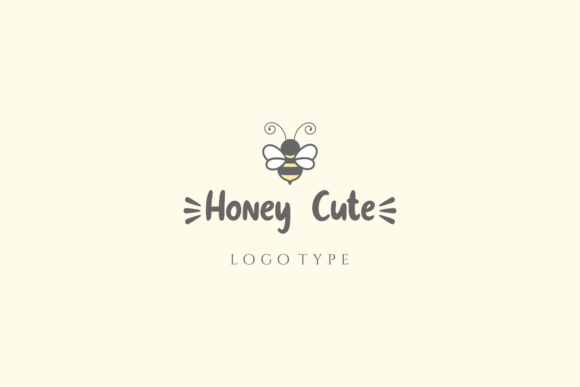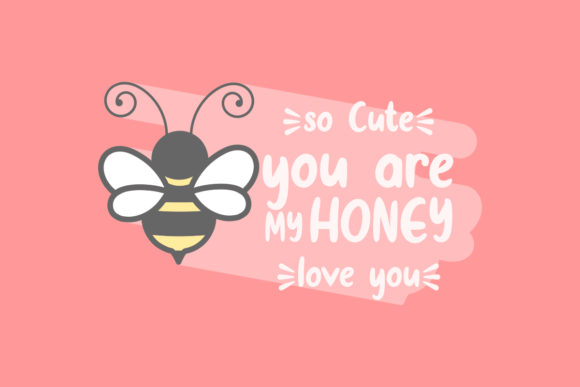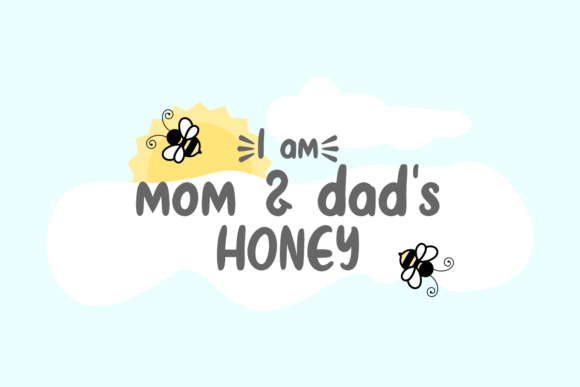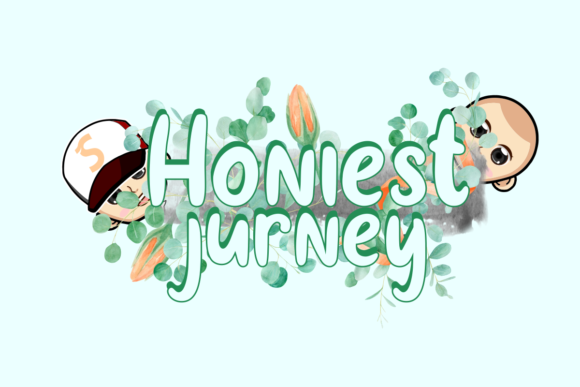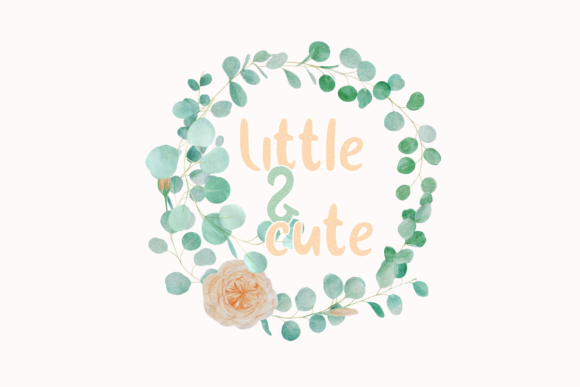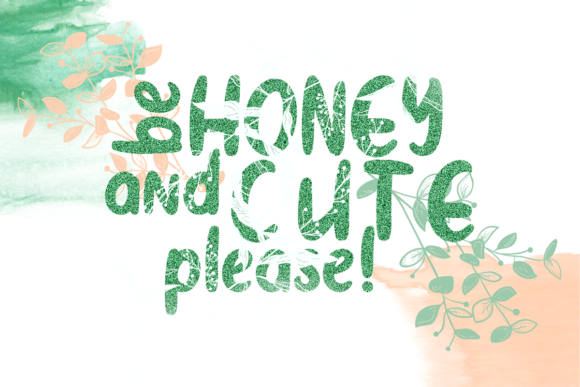
The Sweet Allure of Honey Cute Font
Remember the moment when you stumble upon a font that makes your design instantly feel more personal and charming? For many designers, that moment is what drives their creative process. It’s a feeling of excitement and curiosity, as if the perfect brush stroke has been found to bring a project to life. This is exactly what happens when you discover the Honey Cute Font – a delightful handwritten font that exudes warmth and friendliness.
Honey Cute Font is designed to evoke a sense of authenticity and approachability, making it an ideal choice for a wide range of designs, from greeting cards to children’s books. Its unique style and versatility make it a valuable asset for designers looking to add a personal touch to their work.
Honey Cute Font Key Features
- Character Set: The font includes a wide range of characters, including uppercase and lowercase letters, numbers, punctuation marks, and special characters, making it suitable for various design applications.
- Unique Characteristics: Honey Cute Font features a distinctive, hand-drawn design with a touch of whimsy, adding a playful and charming feel to any text.
- Style Options: Honey Cute Font comes in a variety of styles, including Regular, Italic, Bold, and Bold Italic, giving designers the flexibility to choose the perfect look for their project.
- Legibility: Despite its playful design, Honey Cute Font is highly legible, making it suitable for body text, headings, and titles in various design applications.
Honey Cute Font Review
I recently had the chance to work with the Honey Cute Font and I must say it’s a mixed bag. On the one hand, I think it’s a great choice for projects that require a playful and whimsical touch.
- The font’s rounded edges and cursive feel make it perfect for creating a friendly and approachable atmosphere.
- The character set is quite extensive, with a wide range of punctuation and special characters available.
- The font may not be the best choice for projects that require a more professional or formal tone.
- The font’s rounded edges can sometimes make it difficult to read, particularly in smaller sizes.
- The font’s character set is not as extensive as some other fonts, which may limit its use in certain projects.
Overall, I think the Honey Cute Font is a great choice for designers looking to add a touch of whimsy to their projects. However, it may not be the best choice for every project, and designers should carefully consider the font’s limitations before making a decision.
Honey Cute Font is ideal for designs that require a playful and whimsical touch, such as:
- Children’s products and packaging
- Wedding invitations and decorations
For optimal results, use Honey Cute Font in combination with bright and pastel colors to create a visually appealing design.
Alternatives to Honey Cute Font
Lobster Font is a cursive script font with a unique and playful feel. It is ideal for use in headings, titles, and other design elements where a touch of elegance is needed. Lobster Font is similar to Honey Cute Font in its cursive style, but it has a more refined and sophisticated look.
Great Vibes Font is a modern script font with a relaxed and casual feel. It is perfect for use in designs that require a friendly and approachable tone. Great Vibes Font has a similar organic feel to Honey Cute Font, but it is more fluid and dynamic.
Pacifico Font is a beautiful script font with a beachy and laid-back feel. It is ideal for use in designs that require a sense of relaxation and calmness. Pacifico Font has a similar hand-written feel to Honey Cute Font, but it is more refined and polished.
What is the character set of Honey Cute Font?
Honey Cute Font includes a comprehensive character set that covers a wide range of languages, including Latin, Cyrillic, Greek, and more. The font includes over 1,000 glyphs, including standard letters, punctuation, and symbols, as well as additional characters for languages that require diacritical marks or special characters.